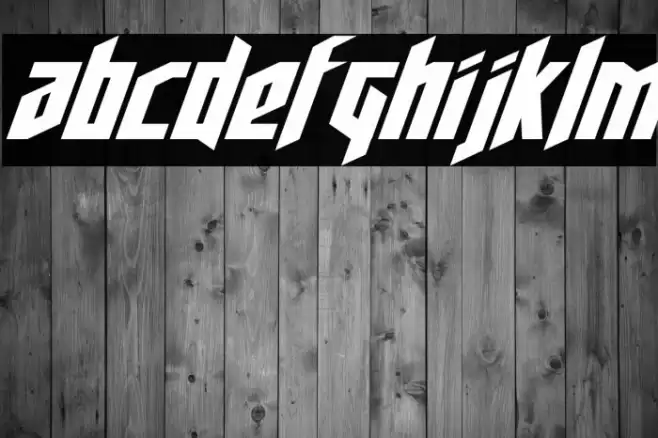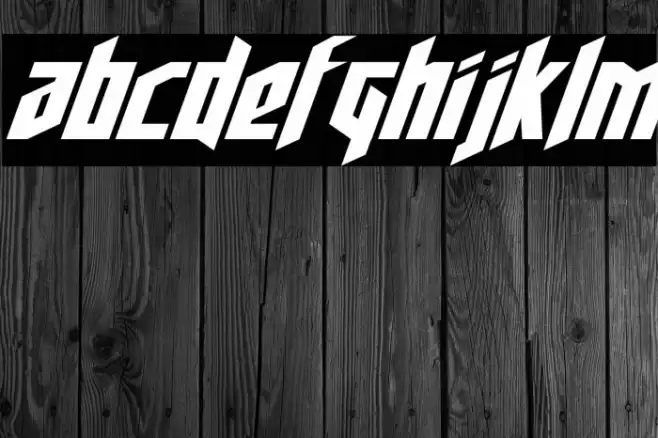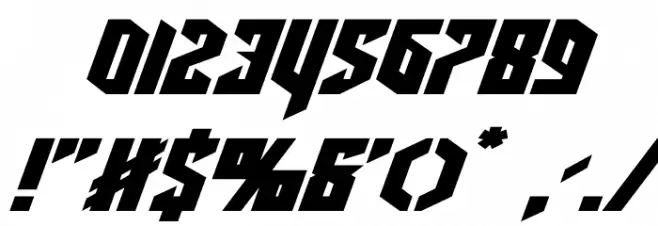
Deathshead Expanded Italic Font
Deathshead Expanded Italic Description
This font features a bold, angular design with a distinctly aggressive and futuristic aesthetic. The characters are sharply cut with exaggerated angles and a slanted orientation, giving it a dynamic and energetic feel. The uppercase and lowercase letters maintain a consistent style, with the lowercase letters being slightly more compact. Numbers and special characters follow the same angular and bold design, ensuring uniformity across the typeface. The font's expanded width and italic slant contribute to its striking appearance, making it ideal for attention-grabbing designs.
A bold, angular, and italic font with a futuristic and aggressive style from Uncategorized fonts.
- Font: Deathshead Expanded Italic
- Proposed Projects: Ideal for use in video game graphics, movie posters, branding for tech companies, or any project requiring a bold and futuristic look.
- Width: Expanded
- Overall Style: Futuristic, Aggressive
Deathshead Expanded Italic UPPERCASE
Deathshead Expanded Italic LOWERCASE
Deathshead Expanded Italic OTHER CHARS